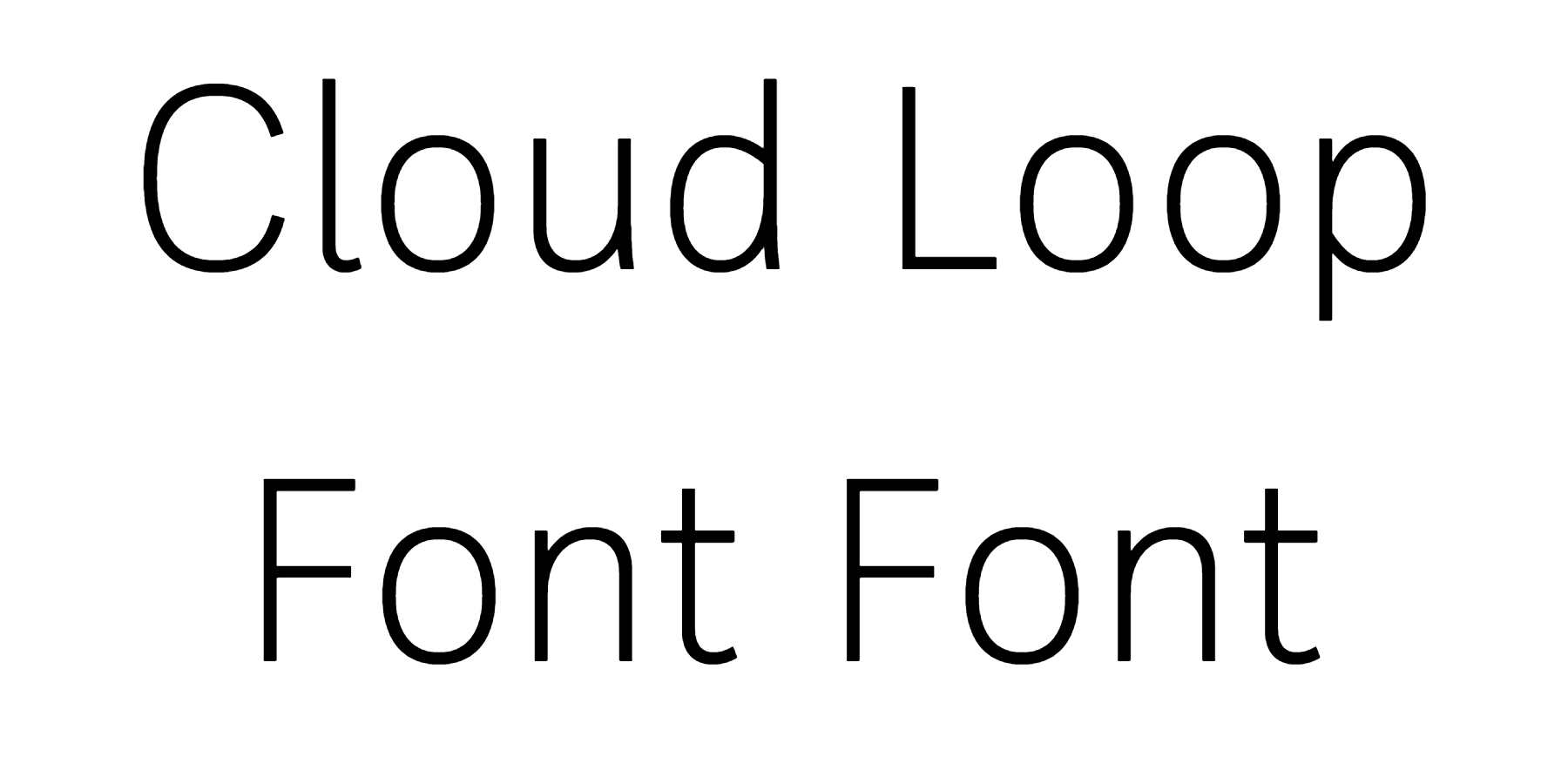
Cloud Loop
Cloud Loop is a sans serif font designed by Typomancer (2016). It has a clean, no-nonsense look that fits modern brands and websites. It's a free download, and you can try it with your own text in the preview above first.
- OpenType features: Ligatures, old-style numbers and fractions
Cloud Loop covers the full alphabet in upper and lowercase, plus all ten numbers, so you can set names, dates and prices without switching fonts. Everyday marks like &, !, ? and @ are there too. Thanks to its accented letters, it also works for Spanish, French, German, Portuguese and Italian, not just English.
Cloud Loop is a natural fit for websites, app screens and clean logos. It works for headings and body text alike. If the download has several weights, use a heavier one for titles and a lighter one for paragraphs.